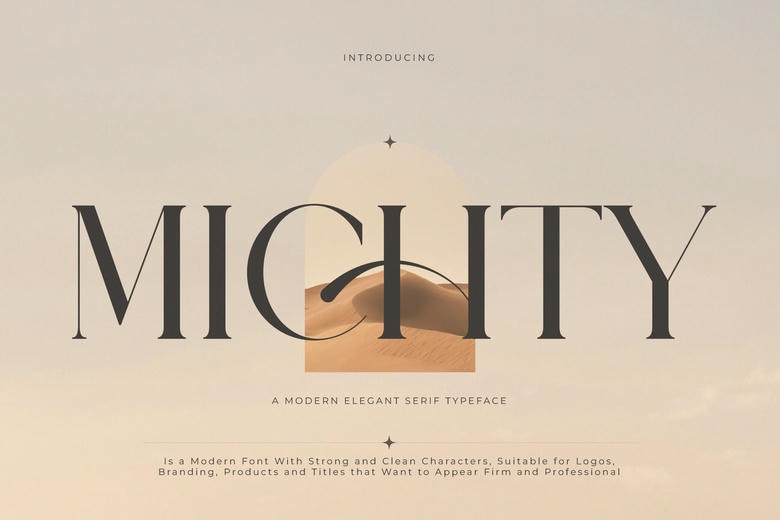
Michty Font
Michty is a modern serif font with an elegant, minimalist look. Its style brings a sense of luxury and class to websites, logos, brand identities, social media quotes, wedding stationery, magazines, and other projects.
Michty features unique and stylish capital letters from A to Z, plus special alternates. These options make it easy to customize the font for any project. You can use Michty for logos, branding, wedding invitations, business cards, greeting cards, posters, magazines, social media, printed agendas, and websites.
Michty Serif Font